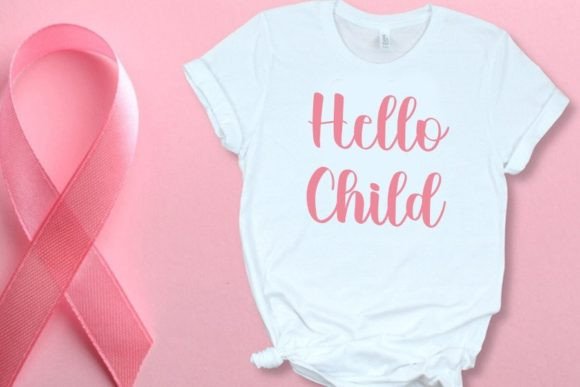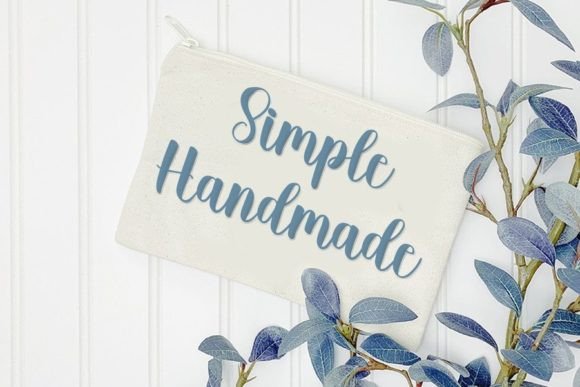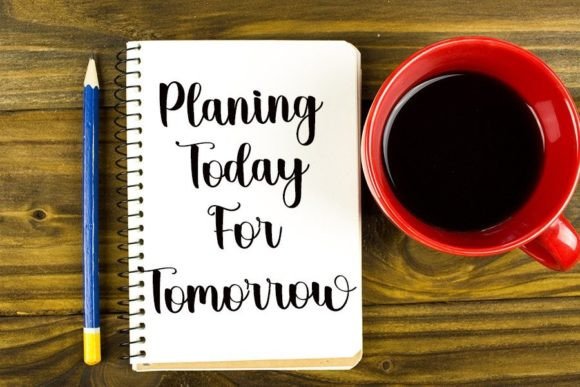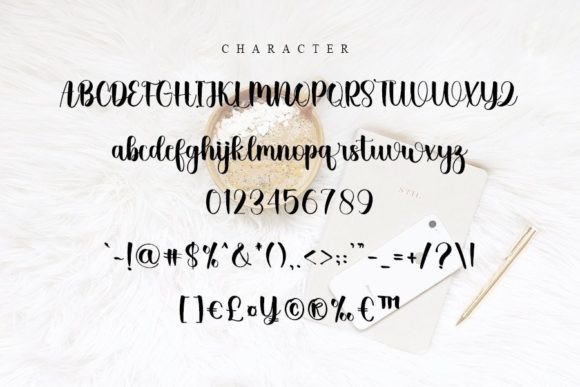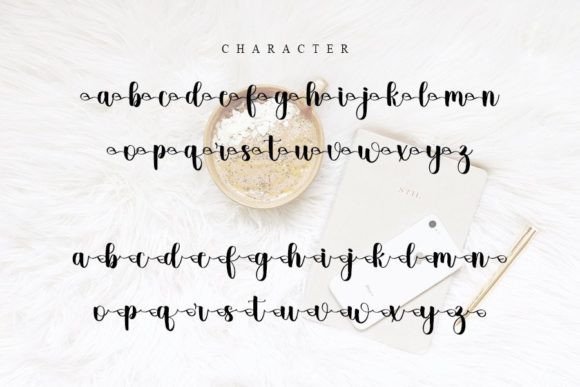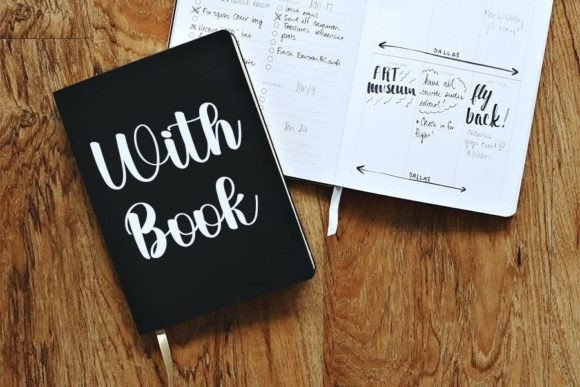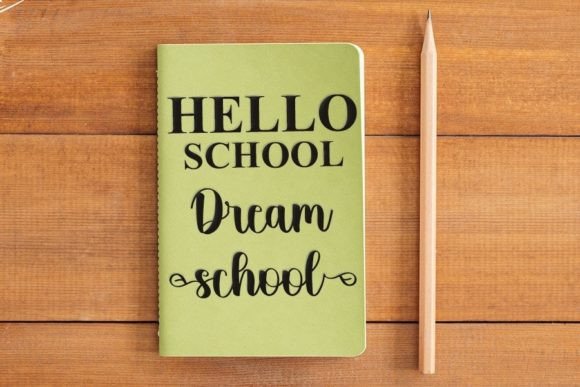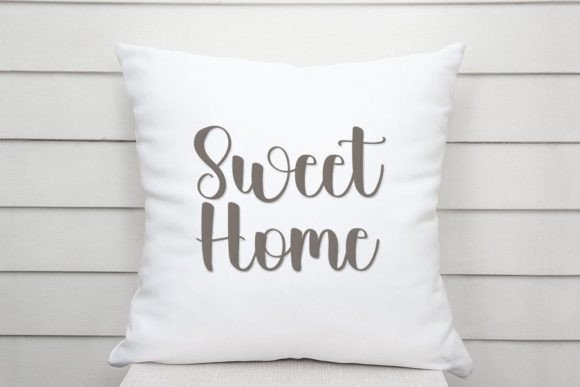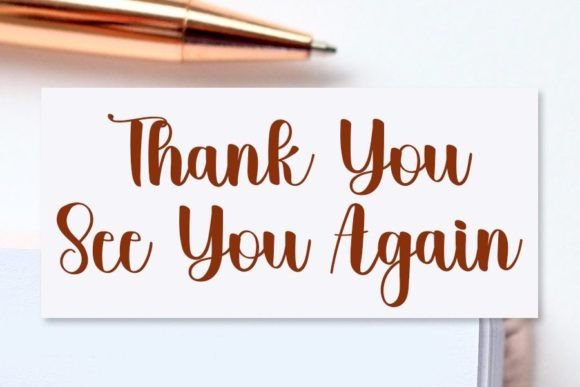
Planner Font
About Planner Font
“Planner” is a beautiful and refined script font that embodies class, elegance, and modernity. With its sophisticated and graceful appearance, this font is a versatile choice for a wide range of design applications. Its timeless style makes it perfect for logos, branding, invitations, stationery, wedding designs, social media posts, and various other creative projects.
The font’s elegant and flowing characters add a touch of sophistication to any design. Its sleek and modern look enhances the visual appeal of your projects, making them stand out. Whether you’re creating a logo for a high-end brand, designing elegant wedding invitations, or crafting engaging social media posts, “Planner” elevates the overall aesthetics of your work.
An outstanding feature of “Planner” is its PUA encoding, which provides easy access to a plethora of amazing glyphs and ligatures. With this feature, you can customize and personalize your designs effortlessly. The availability of these additional characters allows you to create unique and visually appealing typography compositions, adding a layer of creativity to your projects.
Incorporating “Planner” into your creative ventures enables you to infuse them with sophistication and class. Its refined style and access to diverse glyphs and ligatures make it a valuable asset for designers seeking a font that exudes beauty and versatility. Embrace the font’s elegance, and let it enhance your logos, invitations, social media posts, and various other design works, ensuring they radiate a sense of timeless beauty and sophistication.